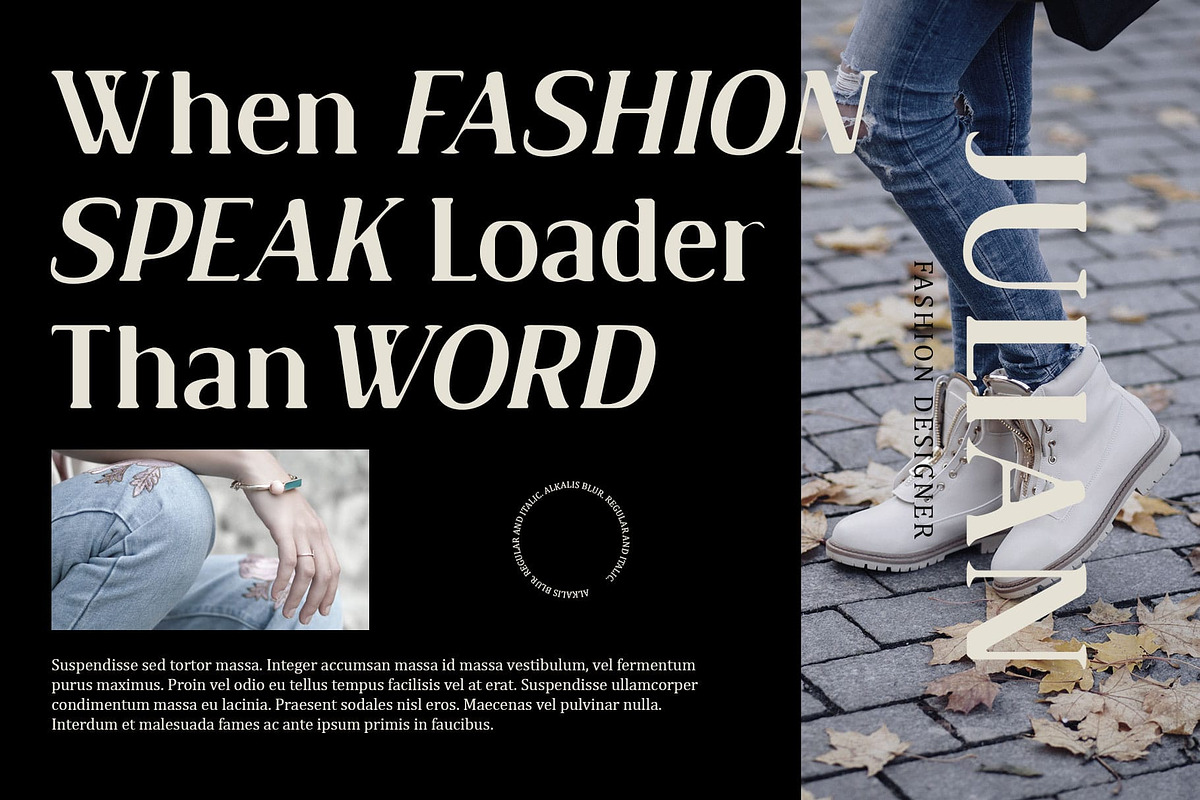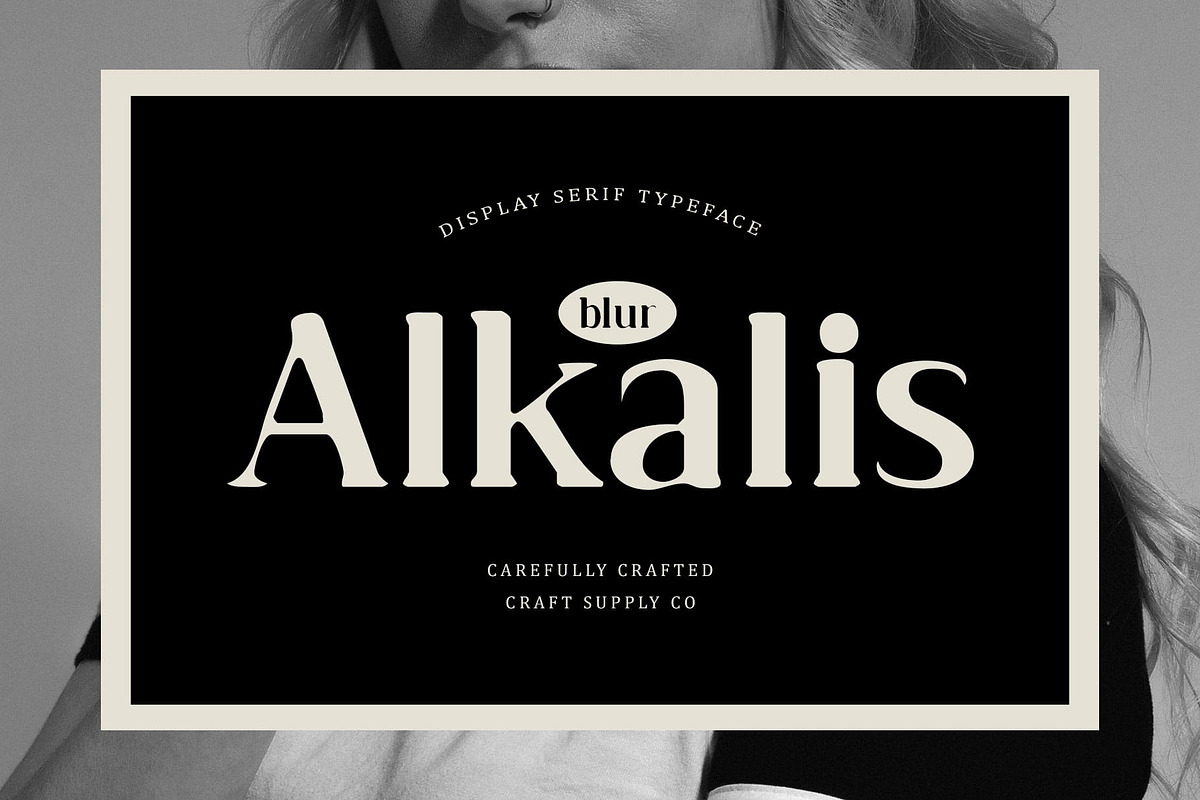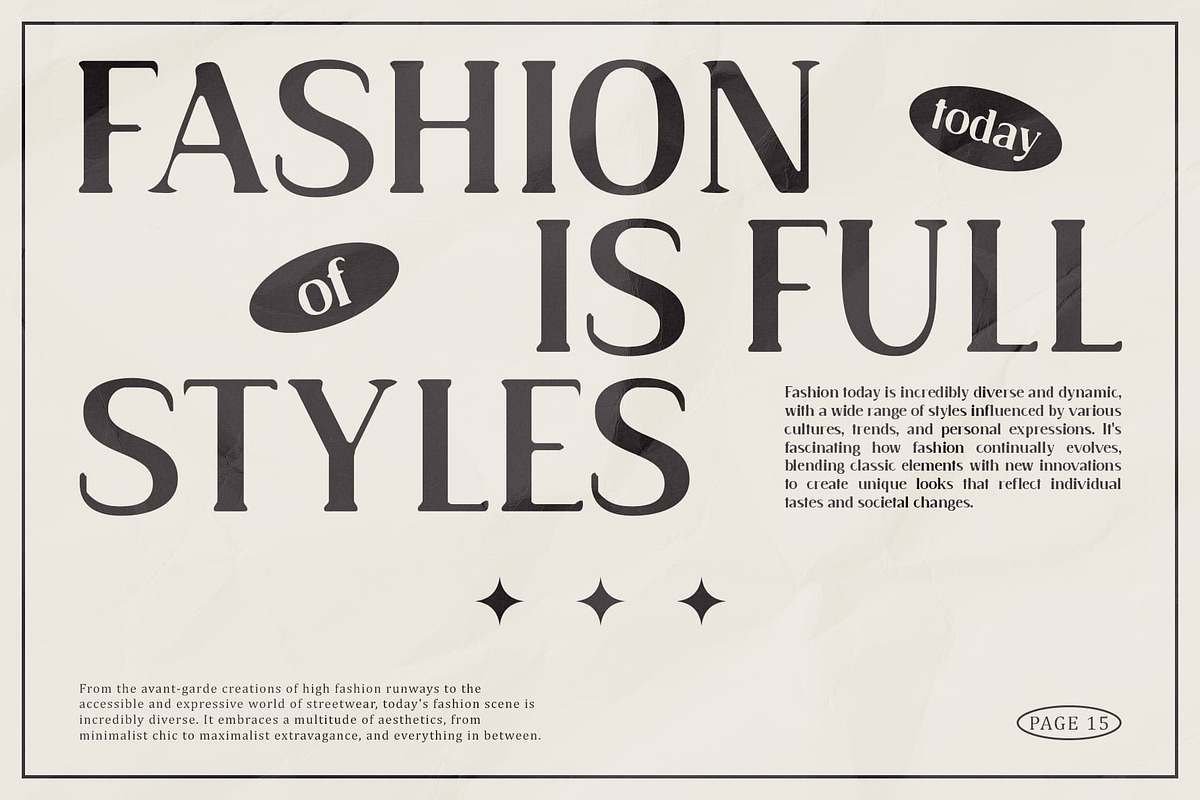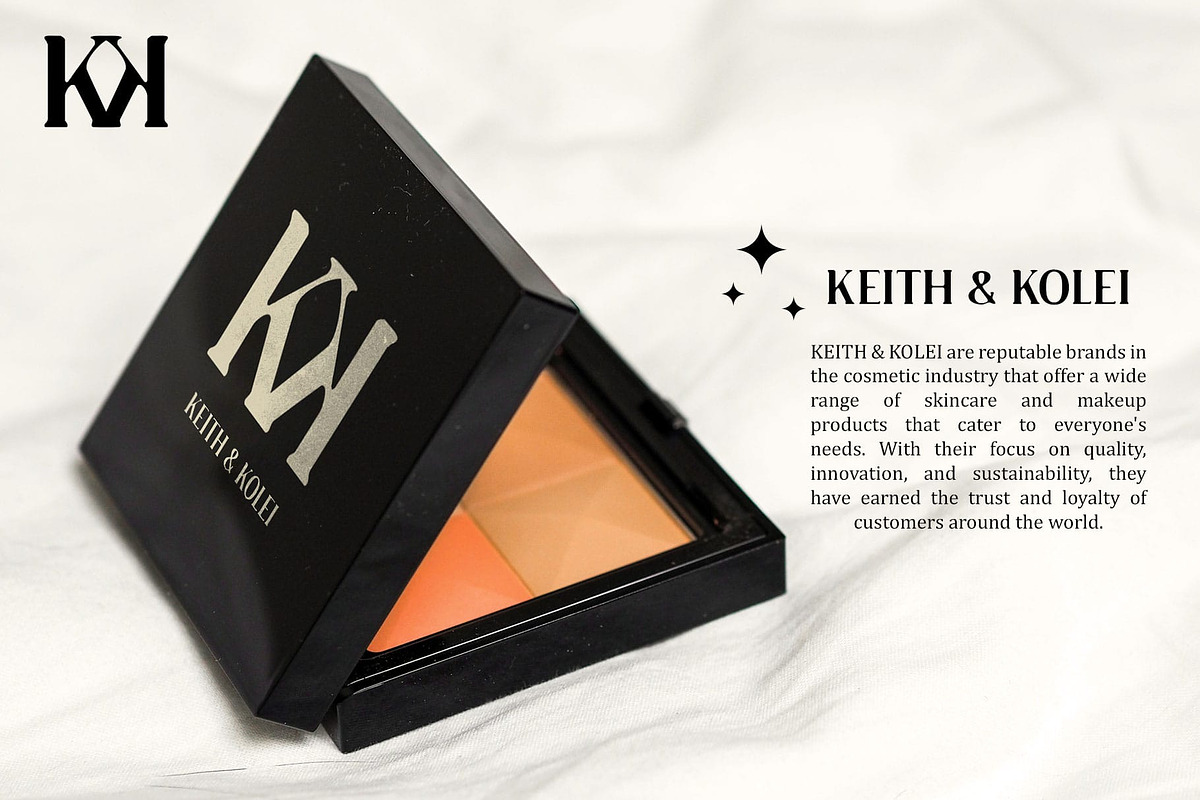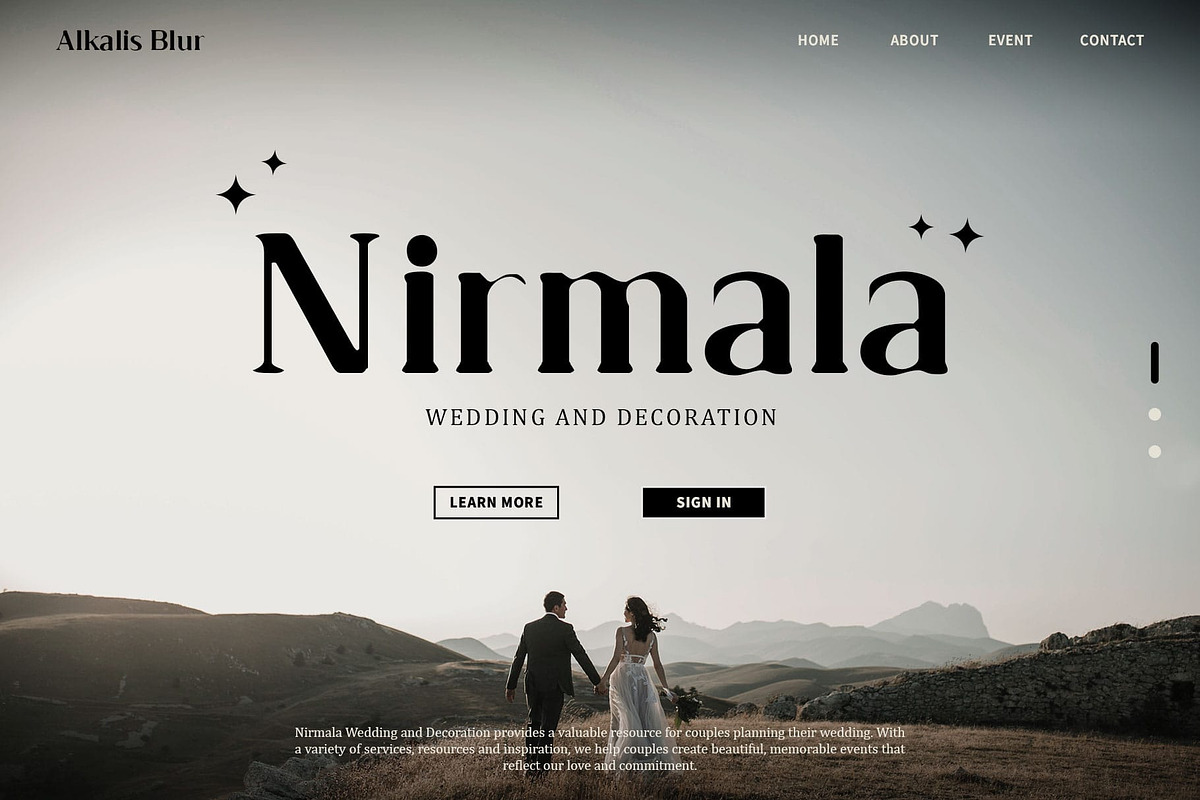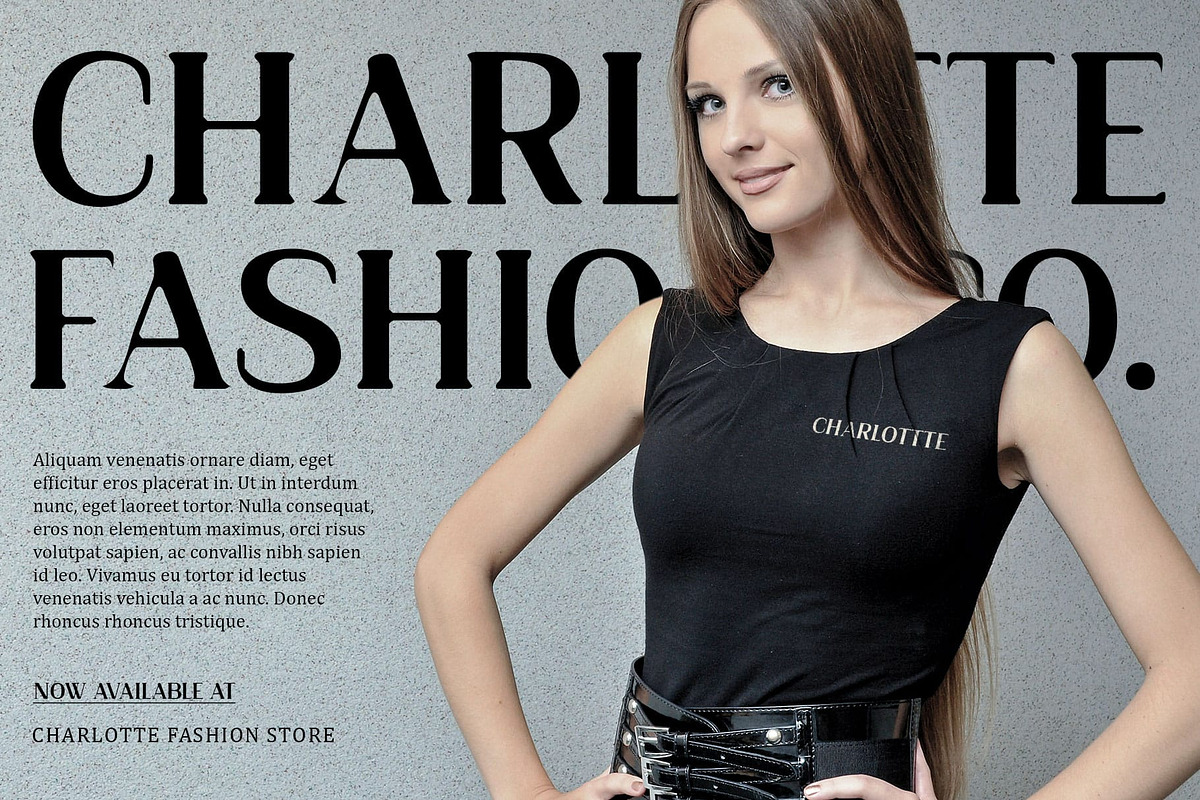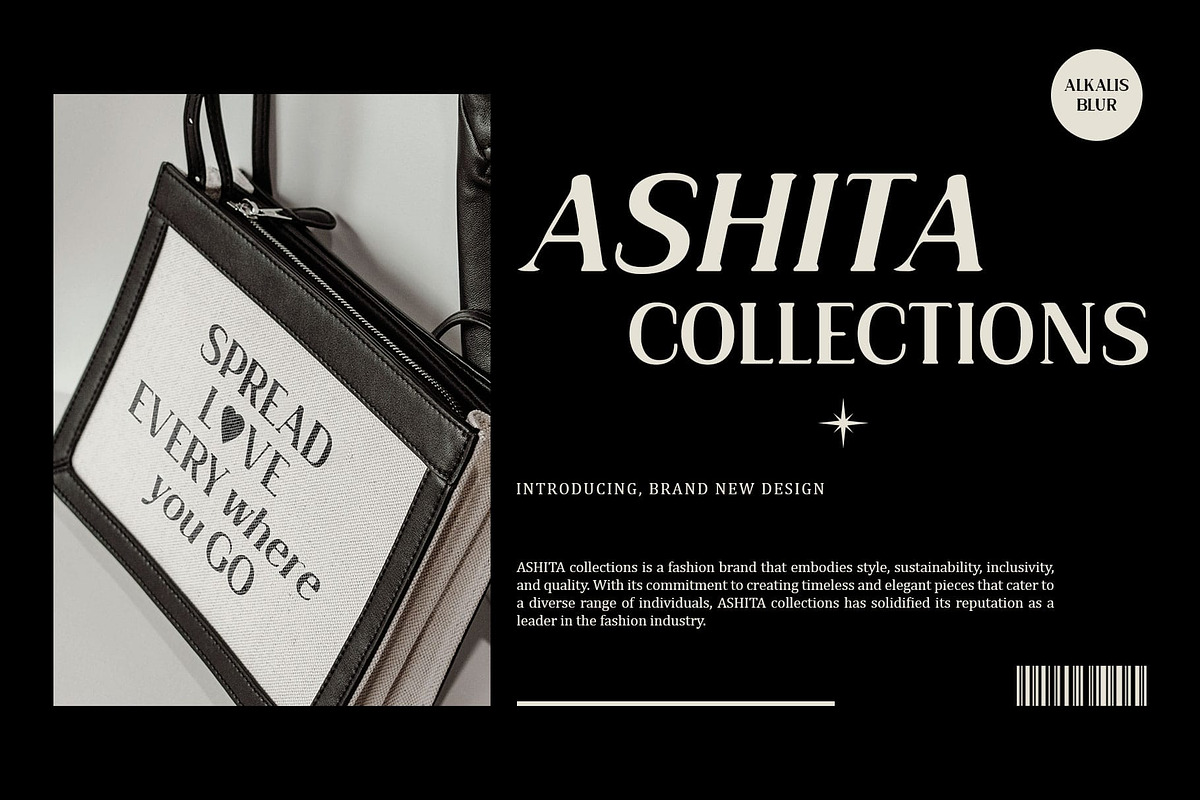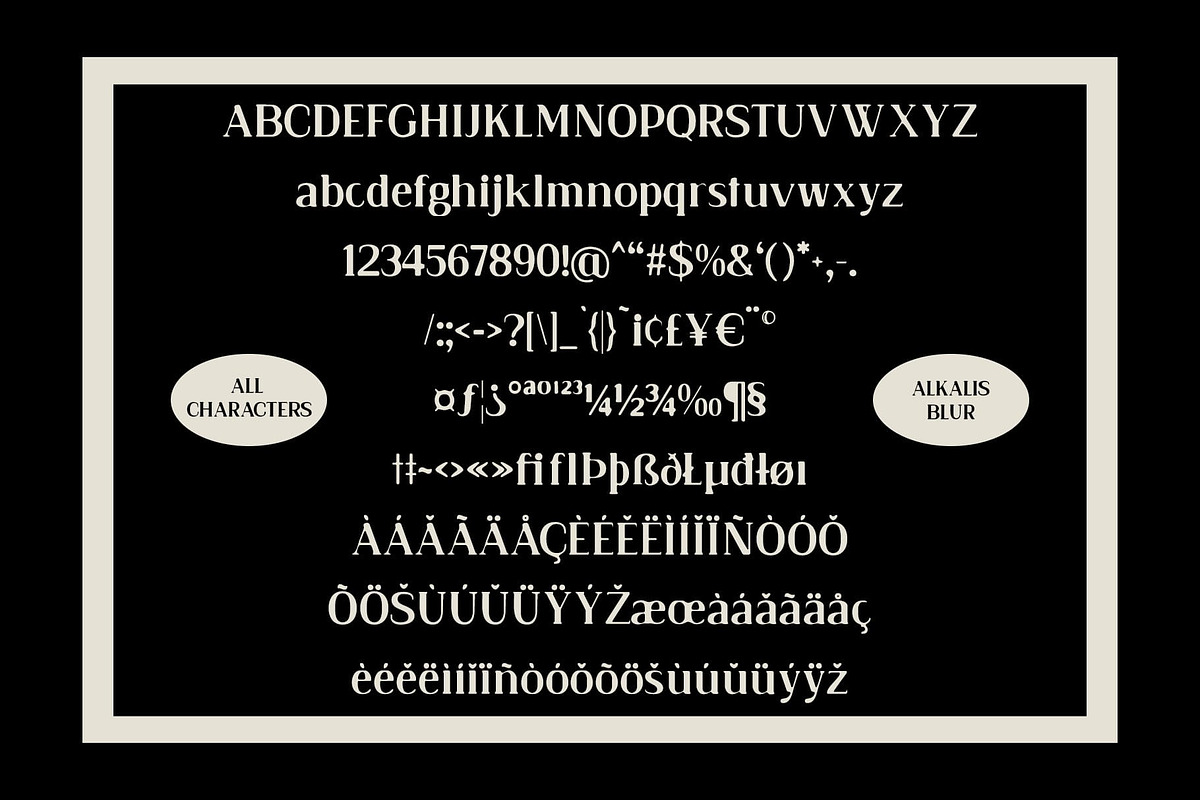
Alkalis Blur
Alkalis Blur: Sophistication with an Artistic Touch
Exudes Sophistication and Luxury
Alkalis Blur is a modern serif font with an elegant design and a blur effect that exudes sophistication and luxury. The blur effect adds a unique artistic touch, making it ideal for designs that aim to radiate elegance and distinctiveness.
Perfect for Classy and Attention-Grabbing Designs
With its elegant design and blur effect, Alkalis Blur is perfect for classy and attention-grabbing designs. This font ensures your work stands out with a refined and luxurious aesthetic, making it suitable for posters, invitations, branding, and other creative projects.
Ideal for Posters and Invitations
Alkalis Blur enhances posters and invitations with its sophisticated and unique appearance. Its elegant style and blur effect create a striking visual impact, ensuring your designs convey a sense of class and exclusivity.
Versatile for Creative Projects
Versatile and artistic, Alkalis Blur adapts seamlessly to various creative projects. Whether used in digital or print media, this font provides a luxurious and distinctive touch that elevates the overall quality of your work.
- Alkalis Blur Regular
- Alkalis Blur Italic